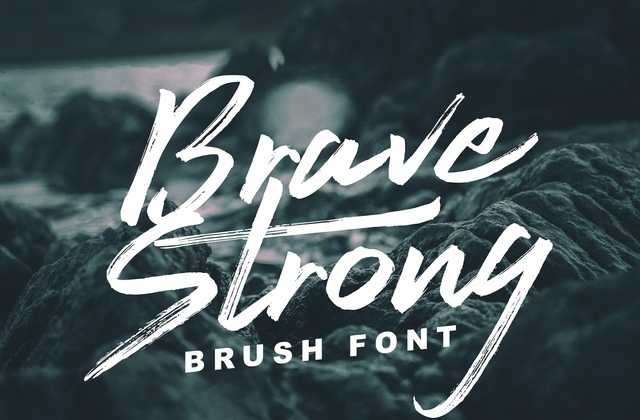
Brave Strong Font
This Brave Strong Font is perfect for sports team logos, fitness brand materials, military-themed designs, action movie posters, outdoor adventure branding, construction company signage, automotive industry graphics, motivational content, athletic apparel designs, and powerful headline typography.
What makes this Brave Strong Font exciting is its commanding presence that embodies courage, determination, and unwavering strength. The font features bold, assertive letterforms with powerful stroke weights that create immediate visual impact and convey masculine energy. Its robust construction and fearless character make it ideal for brands that need to communicate power, reliability, and bold confidence in competitive markets.
The Brave Strong Font family includes regular, bold, and black weights with condensed variants and impact alternates. This comprehensive powerful font family provides designers with the strength to create commanding typographic hierarchies while maintaining the bold character essential for high-impact brand communications and attention-grabbing headlines.
Sports organizations and adventure brands consistently choose Brave Strong Font Free Download for projects requiring maximum visual impact and masculine appeal. This font's distinctive powerful character perfectly captures the courage and determination that resonate with audiences seeking authentic strength, performance, and bold action in their brand experiences.
The solid architecture of Brave Strong Font showcases heavyweight letterforms with optimized spacing for maximum readability at any size. Its commanding presence ensures consistent performance across all applications, from large-scale stadium signage to detailed promotional materials requiring bold, attention-grabbing typography.
Professional designers appreciate how Brave Strong Font delivers immediate authority and masculine energy to brand communications. The font's powerful nature allows organizations to communicate strength and reliability while maintaining the bold confidence necessary for effective market positioning in competitive industries.
The versatile applications of Brave Strong Font extend across all contexts where courage and strength are valued. Its commanding character makes it particularly effective for fitness brands, outdoor equipment companies, and action-oriented businesses that need to project power while inspiring confidence and determination.
Whether developing branding for sports teams or creating materials for adventure companies, Brave Strong Font Free Download provides the typographic power that bold brands need to communicate their fearless spirit, unwavering strength, and courageous leadership in markets where confidence and determination define success and inspire loyal followings.